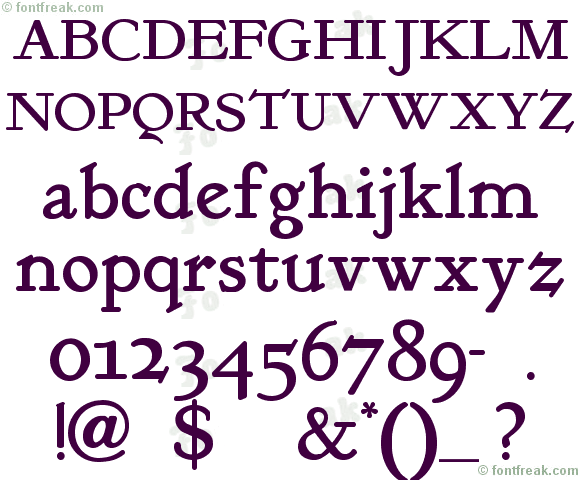
KelmscottRoman
Kelmscott Roman, designed by Nick Curtis, is a sophisticated serif font that elegantly balances traditional aesthetics with modern clarity. This shareware typeface, crafted in 2000, showcases a refined stroke weight that varies gracefully, offering a delightful contrast between thick and thin lines. The font's character set features well-defined serifs, lending a sense of authority and sophistication, while the generous spacing between letters ensures readability in various contexts. Its classic design is enhanced by subtle decorative elements that evoke a sense of timelessness, making it an excellent choice for projects that require a touch of elegance.
The versatility of Kelmscott Roman makes it suitable for a variety of applications. It is particularly well-suited for wedding invitations, where its refined appearance can convey romance and elegance. Additionally, it shines in the realm of book covers, providing a distinguished look that attracts readers. Graphic designers will find it ideal for branding projects, as it conveys professionalism and trustworthiness. Restaurant menus can also benefit from its charm, presenting a welcoming atmosphere that complements culinary offerings. Lastly, this font can elevate corporate presentations, enhancing the overall impact with its sophisticated presence.
The primary audience for Kelmscott Roman includes graphic designers, small business owners, and content creators who seek a polished and refined typeface to enhance their visual communication. Its unique blend of classic serif characteristics with contemporary usability makes it a strong contender for any design project.
What sets the Kelmscott Roman font apart is its ability to combine elegance with practicality, making it an enduring choice for a variety of design needs. For those interested in exploring this exquisite typeface, a Kelmscott Roman font free download is available, allowing users to experience its beauty and versatility firsthand.